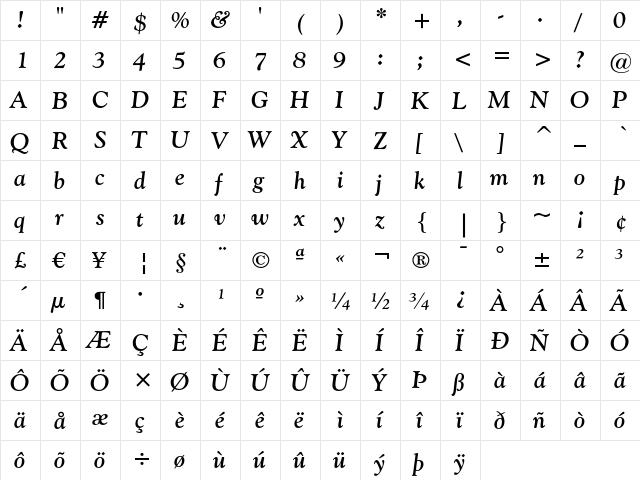
Goudy Old Style Bold Italic Font Preview
Design Context for Goudy Old Style Typeface
Goudy Old Style takes a measured approach to typography — its balanced proportions and neutral character make it a reliable workhorse for both digital and print work. Its italic angle brings a sense of urgency and motion to the letterforms. The heavy weight commands attention and anchors typographic hierarchies.
Pro Tip: Try Goudy Old Style for annotation and caption copy alongside an upright companion — the contrast in angle creates a dynamic but ordered typographic system.